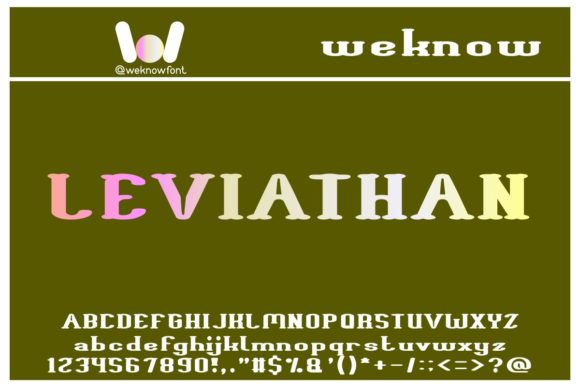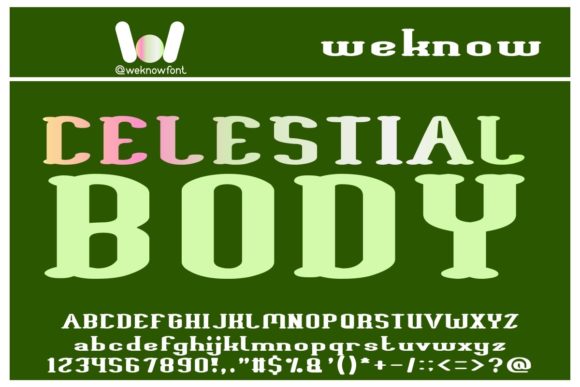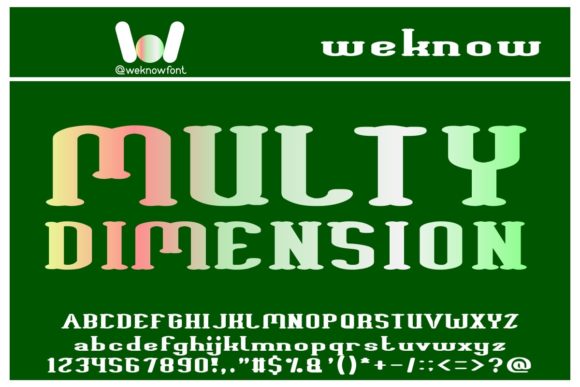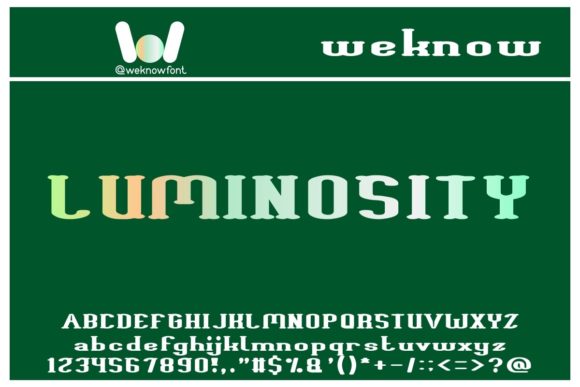
Unlock the Cosmic Vibe of Your Designs
Imagine you’re brainstorming ideas for your latest design project, and suddenly, a burst of inspiration hits you. You envision a bold, futuristic logo that screams ‘innovation’ and ‘creativity.’ This is the moment when the right font can make all the difference. Enter the Giant Universe Font, a sleek and dynamic display font designed to take your designs to the next level.
This versatile font is perfect for a wide range of applications, from logos and corporate identity to apparel and posters. With its unique blend of modernity and edge, the Giant Universe Font is an invaluable asset for designers seeking to create truly eye-catching and memorable designs.
Giant Universe Font Key Features
- Font Family: Giant Universe Font is a unique, high-contrast font designed for use in digital and print media.
- Unique Characteristics: Giant Universe Font features a bold, attention-grabbing design with a high-contrast color scheme, making it ideal for use in situations where visibility is key.
Giant Universe Font Review
Overall, I found the Giant Universe Font to be a unique and attention-grabbing addition to any design project. ✨ Its bold, cosmic-inspired style is sure to turn heads and add a touch of personality to your work. One of the standout features of this font is its versatility – it can be used for a wide range of projects, from science fiction-inspired posters to futuristic branding.
- ✨ Unique and eye-catching design
- ✨ Versatile and suitable for a wide range of projects
- ✨ Includes a wide range of characters, including punctuation and symbols
However, there are a few limitations to consider. ⚠️ The font can be a bit overwhelming in certain contexts, and may not be suitable for projects that require a more subtle or understated design. Additionally, some users may find the font difficult to read at smaller sizes.
- ⚠️ May be overwhelming in certain contexts
- ⚠️ May be difficult to read at smaller sizes
Overall, I would recommend the Giant Universe Font to designers who are looking for a bold and eye-catching addition to their projects. While it may not be suitable for every project, it is certainly a great option for those who want to make a statement.
Use Giant Universe Font to add a touch of whimsy and playfulness to your designs.
- Titles and headings
- Quotes and captions
- Marketing materials and social media graphics
Experiment with different font sizes, styles, and combinations to achieve unique and eye-catching results.